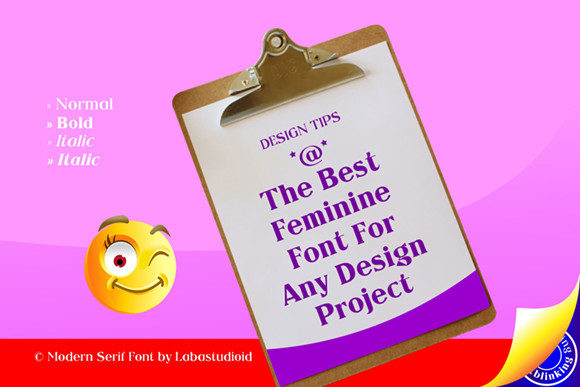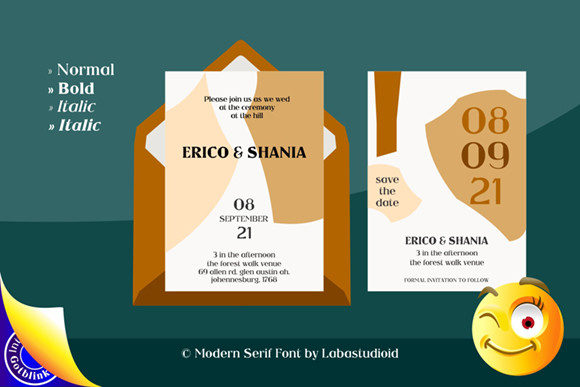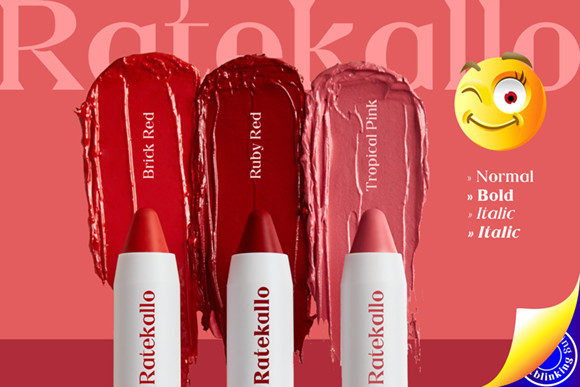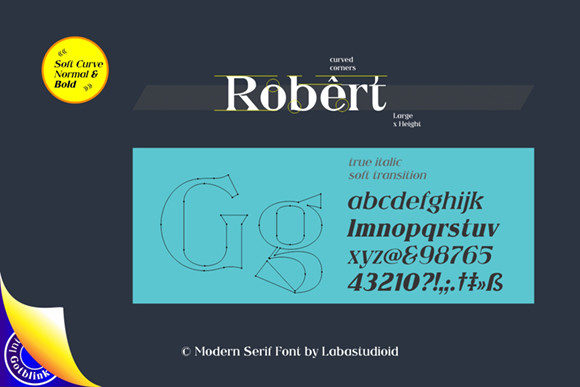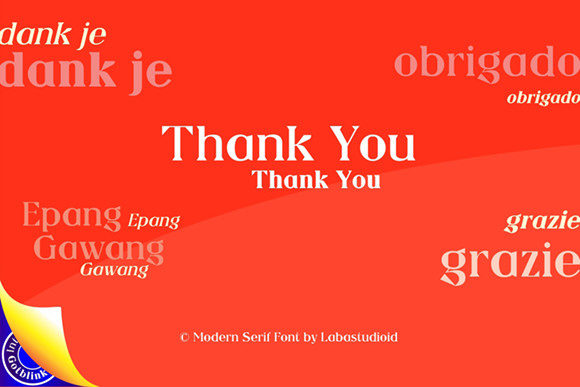
Introduction to Gotblinking Font
Have you ever stared at a blank page, trying to come up with the perfect font to bring your creative project to life? That’s exactly where I was when I stumbled upon the Gotblinking Font – a game-changer in the world of typography. This distinct and assertive serif font has the power to elevate any design and make it truly unforgettable.
| 👤 Author | Labastudioid |
As a designer, you know how crucial it is to have a high-quality design resource that can help you stand out from the crowd. That’s where the Gotblinking Font comes in – a free download that’s perfect for any creative project. Whether you’re working on a logo, a brochure, or a website, this font is sure to make your design shine. And with its transparent background, you can easily layer it over any image or texture for a unique and eye-catching effect.
Key Features of Gotblinking Font
- High-quality design resource ideal for creative projects, offering a unique and eye-catching visual style.
- Unique characteristics include its animated and blinking effects, making it perfect for adding dynamic movement to designs.
Honest Review: Gotblinking Font
I recently had the opportunity to work with the Gotblinking Font on a creative project, and I was pleasantly surprised by its high quality and versatility. The font is a fantastic design resource for anyone looking to add a unique touch to their work.
What works well: ✨ The font’s transparent background makes it incredibly easy to layer and combine with other design elements. I also appreciate the variety of styles and weights available, which allows for a lot of creative flexibility. The free download option is also a major plus, making it accessible to designers of all levels.
Here are some specific features that stood out to me:
- Wide range of styles and weights to choose from
Overall, I’m really impressed with the Gotblinking Font and would highly recommend it to any designer looking to add some creativity to their work.
Common Use Cases for Gotblinking Font
Gotblinking Font is perfect for creating logos, graphics, and other visual elements for marketing materials, social media, and websites. Its high-quality design and transparent background make it ideal for layered designs and graphics.